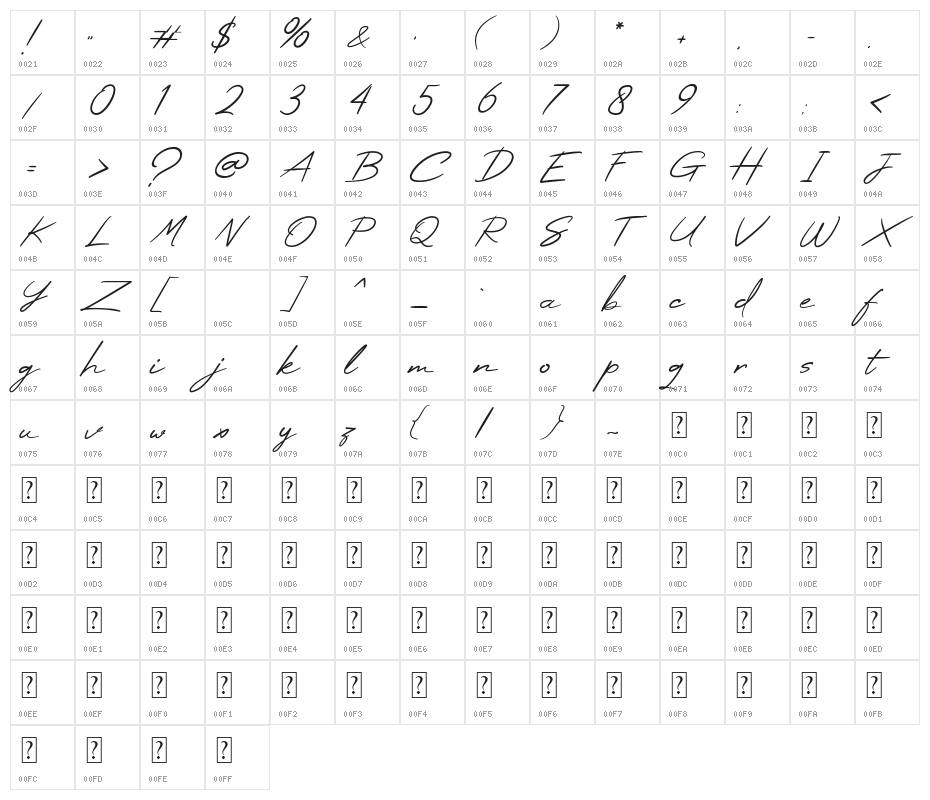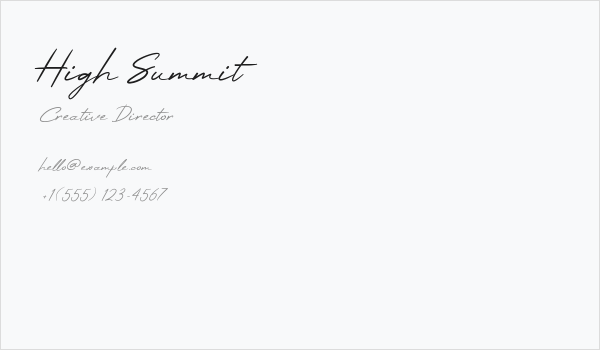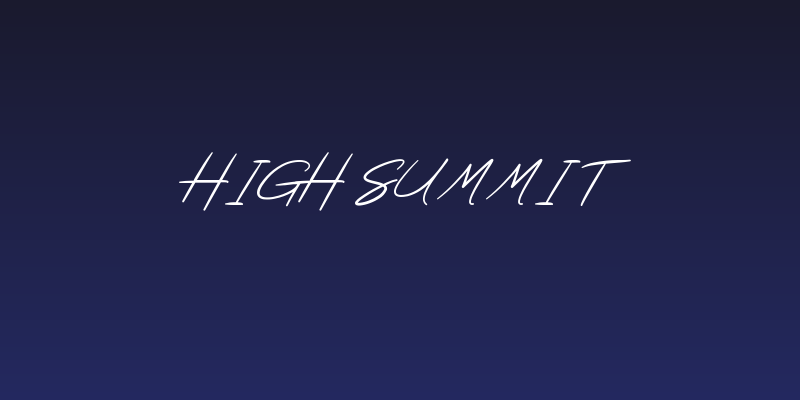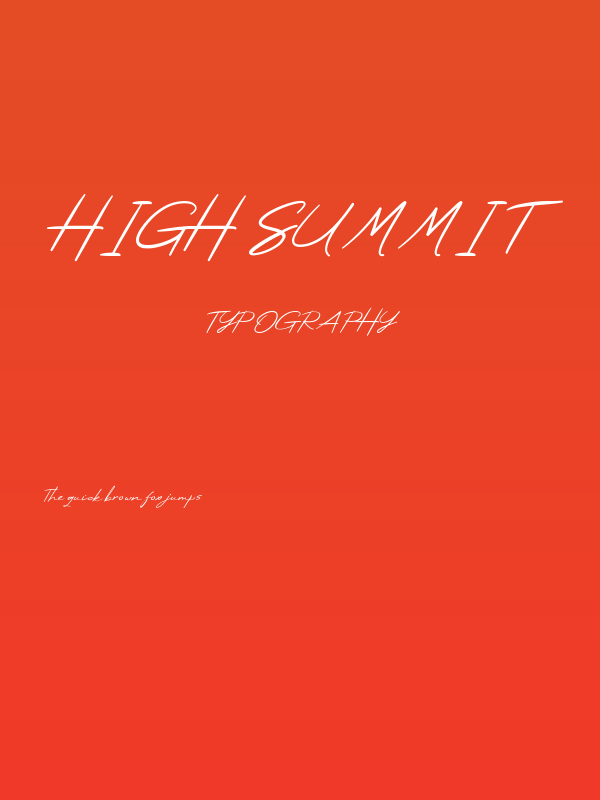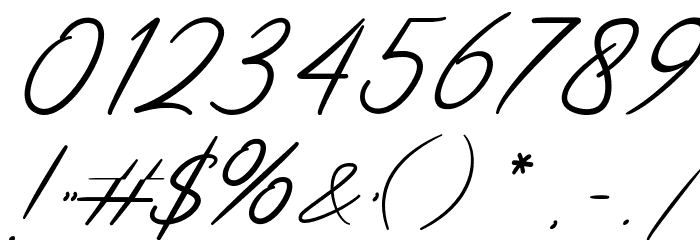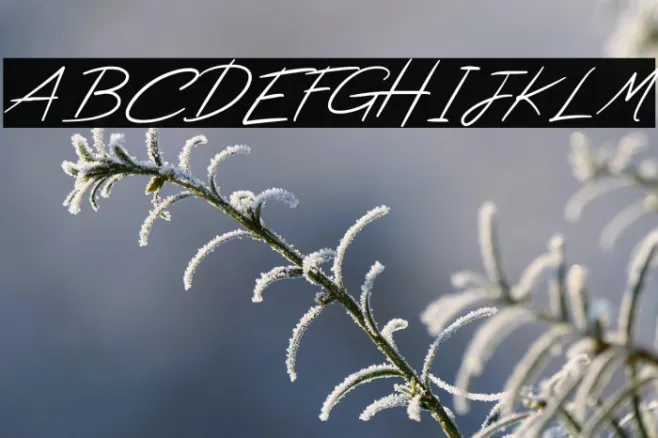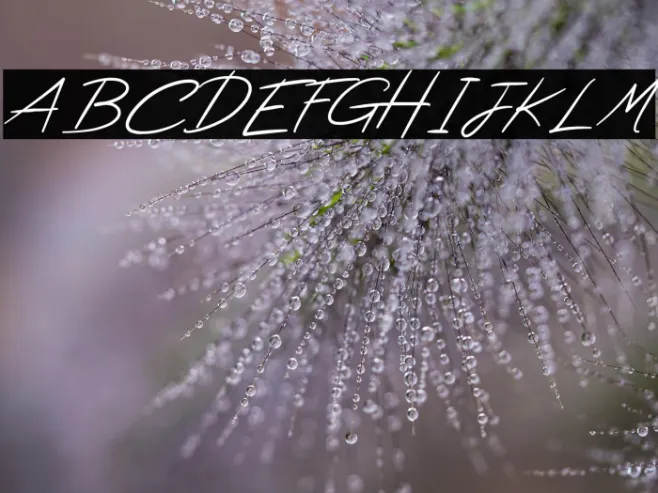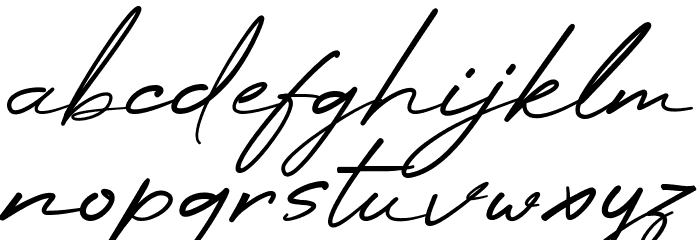
High Summit Font
High Summit Description
This font features a fluid and elegant script style, characterized by its smooth, flowing lines and cursive nature. The uppercase letters are slightly more angular, providing a dynamic contrast to the more rounded lowercase letters. The numerals are consistent with the overall script style, maintaining a sense of elegance and continuity. Special characters are seamlessly integrated, ensuring a cohesive look across all glyphs. The font's design is both sophisticated and approachable, making it suitable for a wide range of applications where a personal touch is desired.
| Use Case | Logos, Invitations, Personal Stationery |
| Proposed Projects | Ideal for wedding invitations, greeting cards, branding, and personal stationery. |